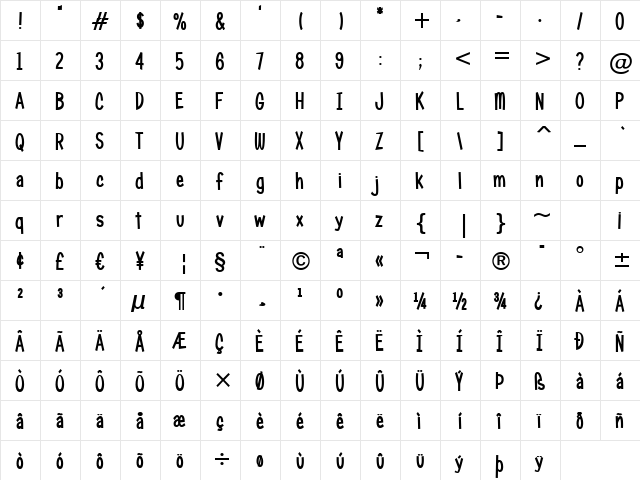
Candy Square BTN Cond Bold Font Preview
Design Context for Candy Square BTN Cond Typeface
Candy Square BTN Cond offers clean, dependable letterforms without strong stylistic allegiance, making it a practical choice for designers who need flexibility. Its bold stroke weight gives it real presence on the page. The condensed width makes it efficient for tight spaces without sacrificing legibility.